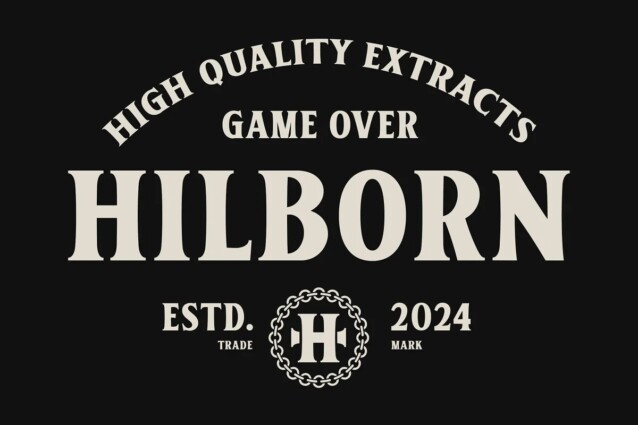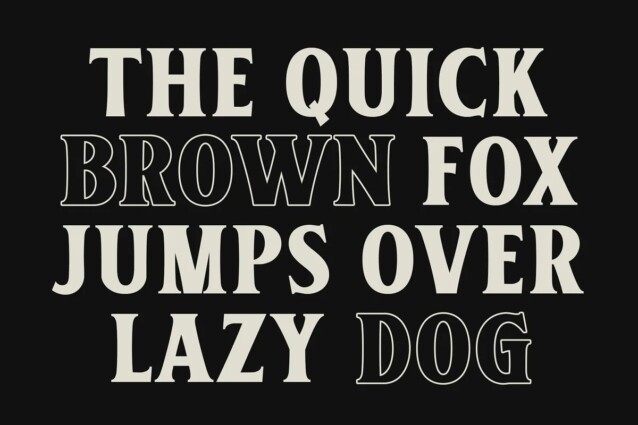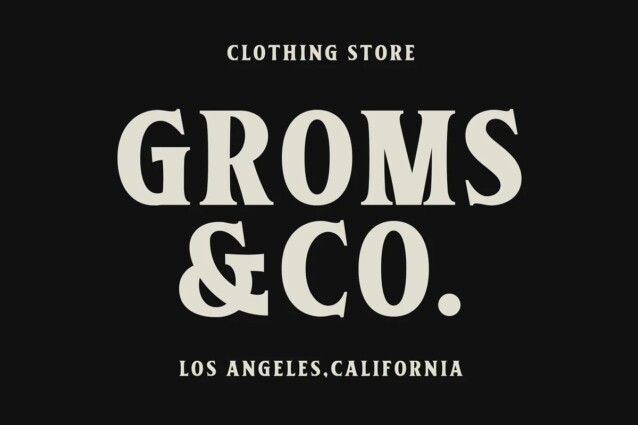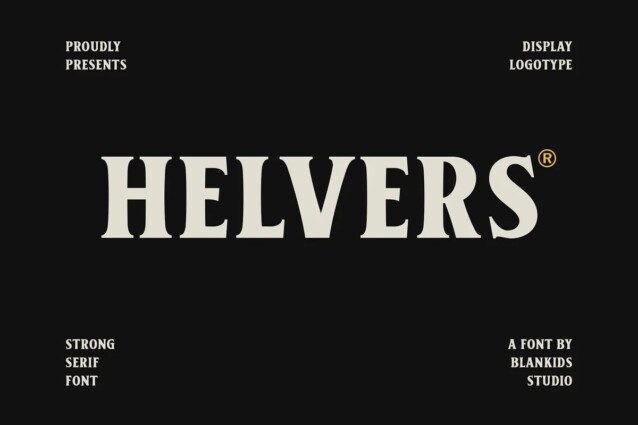
Helvers Font
Helvers Font has a classic bold look with a condensed style and has a wide variety from thin to black to suit your needs. This font is perfect for a design that makes it more attractive and playful. made with a very good level of aesthetics making this font suitable for book cover, poster, packging, merchandise, logotype and much more.